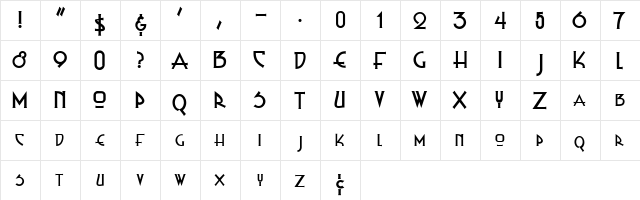
Russel Write TT Regular
Design Context for Russel Write TT Typeface
Russel Write TT is a composed and adaptable typeface that performs quietly and consistently across a wide range of design contexts.